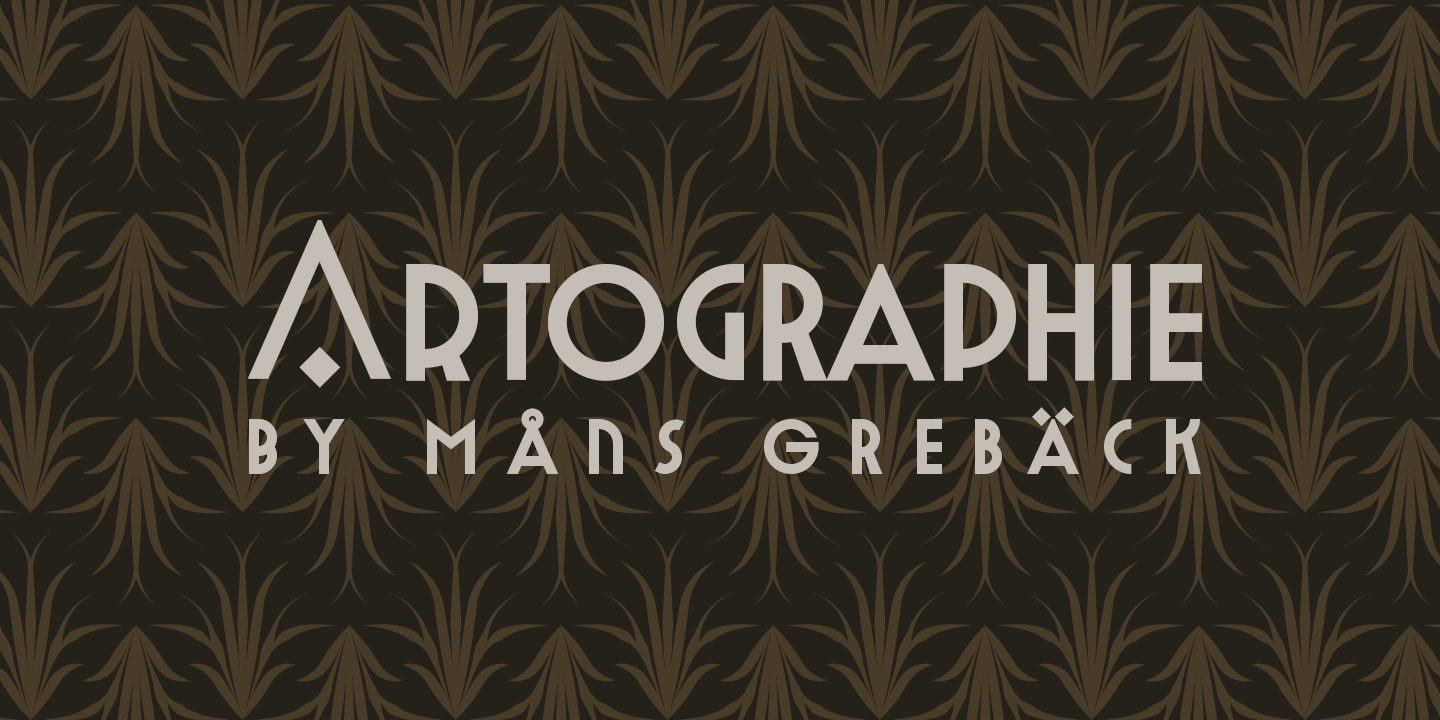
The Artographie Font Free Download is ideal for luxury branding, editorial layouts, posters, and logo designs, offering a refined, Art Deco-inspired aesthetic.
This font is exciting because its sleek, sans-serif design, blending vintage Art Deco charm with modern precision, creates a sophisticated, timeless look for any project.
The Artographie family includes Thin, Light, Medium, Bold, and Black styles, ensuring versatile options for dynamic typography.
Elevate your designs with the Artographie Font Free Download, a modernist sans-serif typeface designed by Måns Grebäck and published in 2019-2020. Inspired by century-old Art Deco aesthetics, Artographie reinvents the style with five weights—Thin, Light, Medium, Bold, and Black—for perfect balance and versatility. With 355+ glyphs supporting European Latin scripts, it’s ideal for creating striking headlines, elegant logos, or polished branding materials. Available in OTF, TTF, and WOFF formats, it ensures crisp rendering across print and digital platforms. As 2025 design trends favor bold, nostalgic typography, downloading Artographie Font Free Download keeps your work chic and contemporary. Test it today at dafont.com to explore its potential, and consider purchasing a commercial license at mn.sg/artographie for full use.